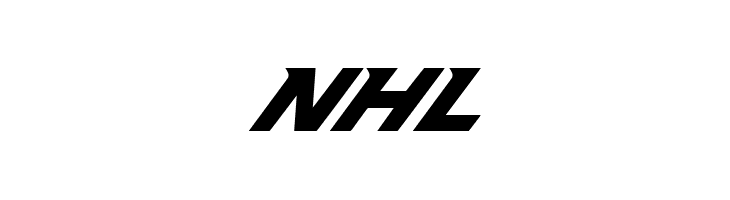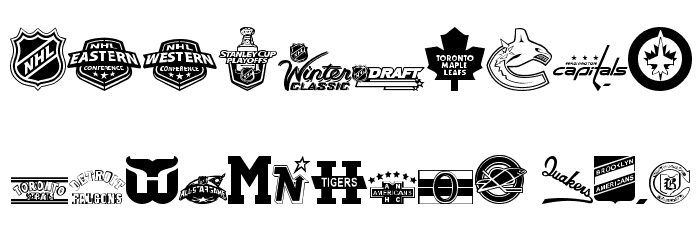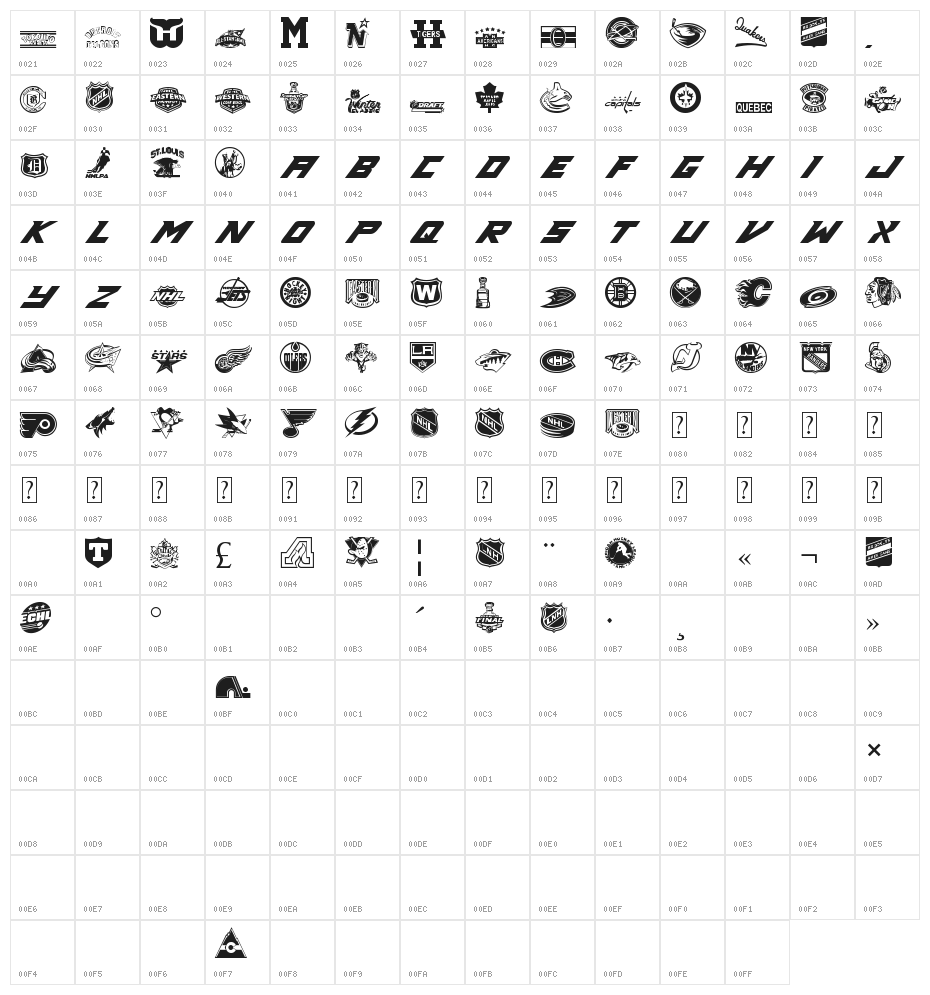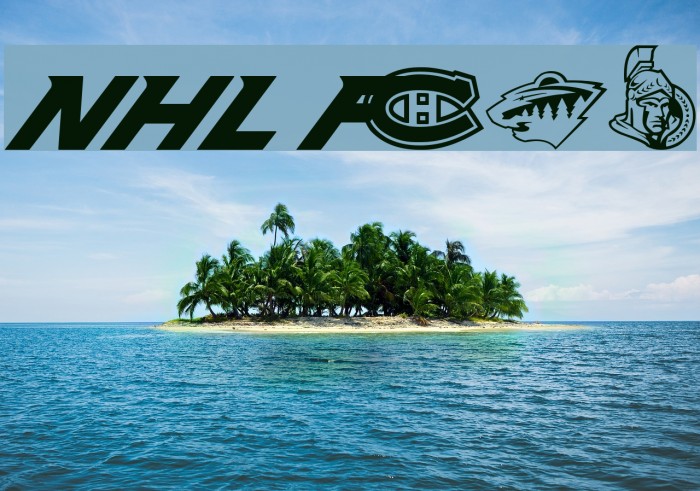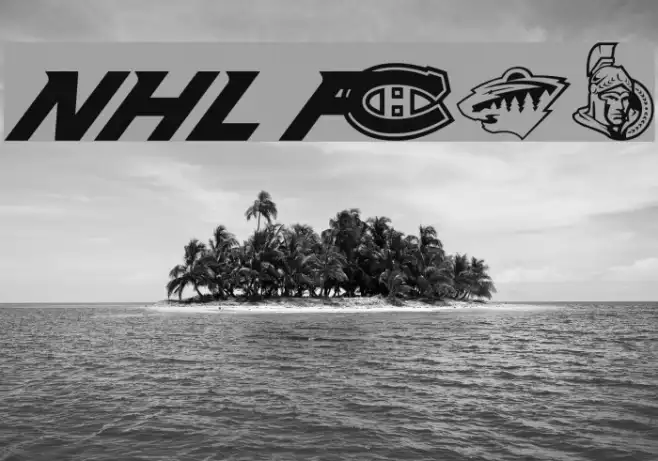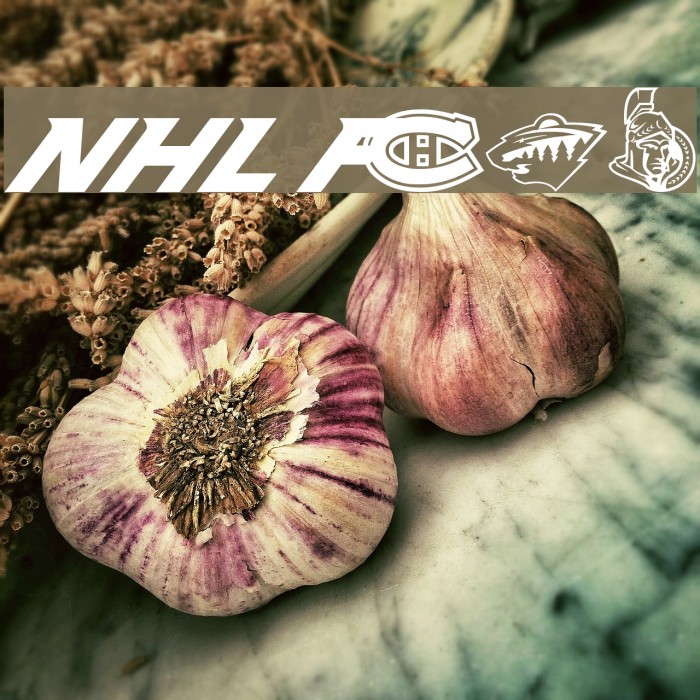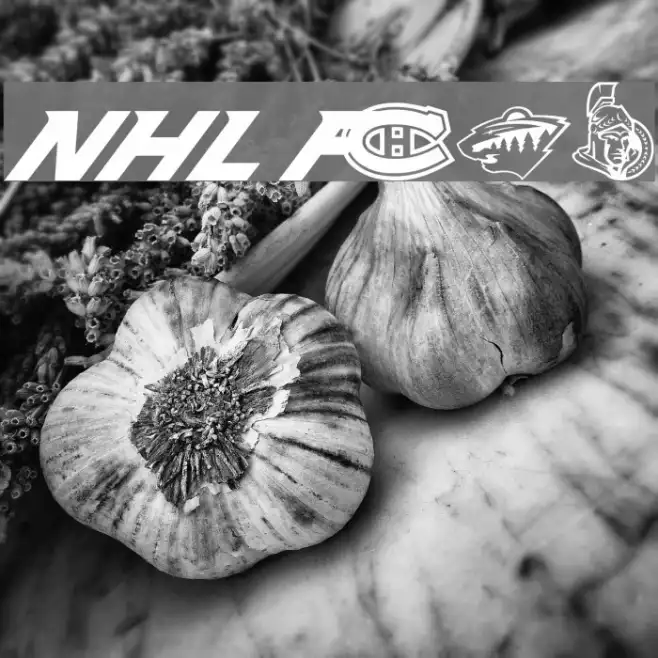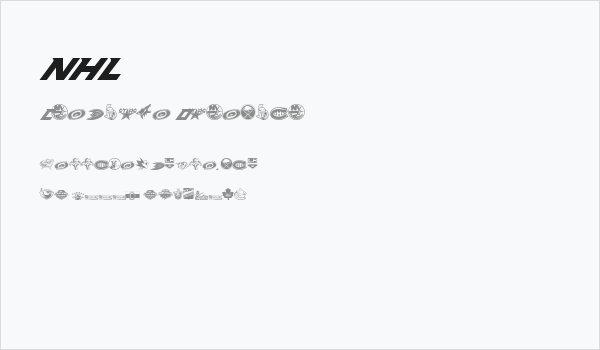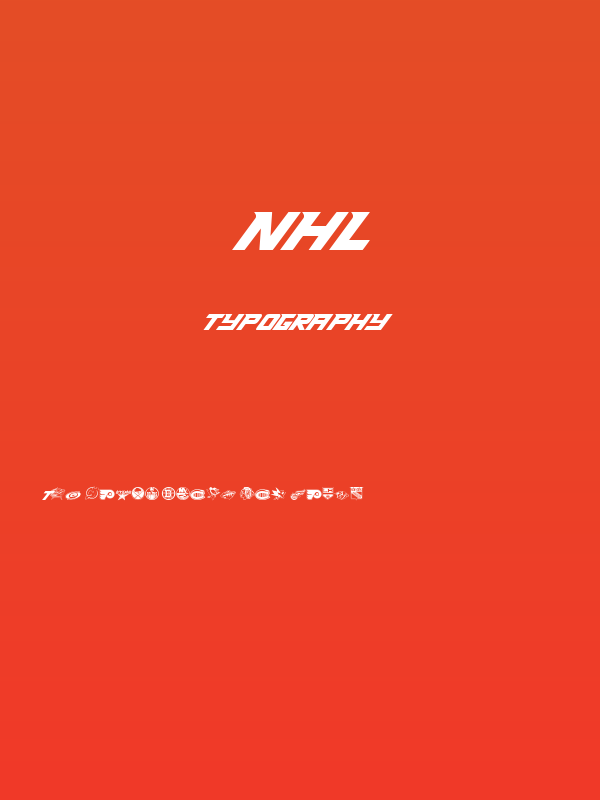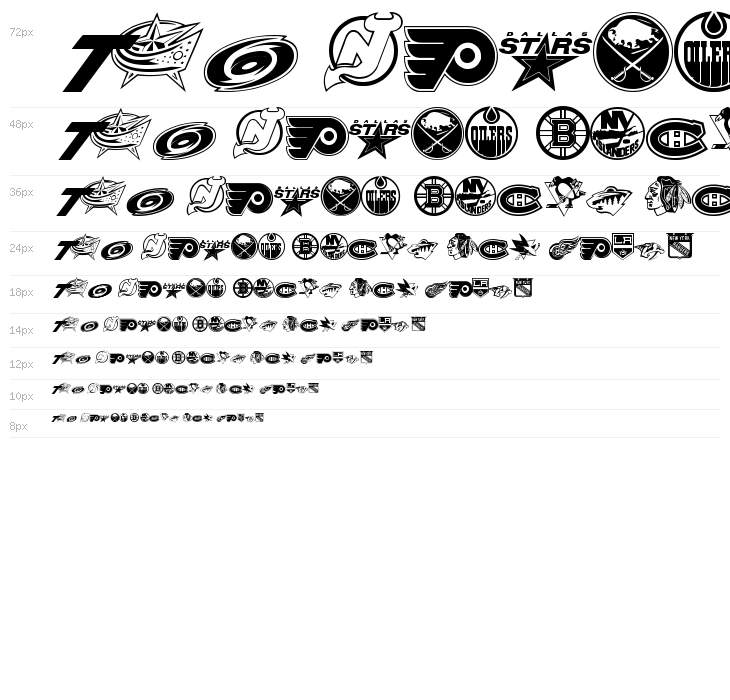
NHL Font
NHL Description
This font features a bold, angular design with a strong, dynamic presence. The letters are slanted forward, giving a sense of motion and energy. The strokes are thick and consistent, with sharp edges and a geometric style that conveys a modern and sporty feel. The uppercase letters are uniform in height, maintaining a cohesive look across the alphabet. This style is reminiscent of athletic branding, making it ideal for conveying strength and speed.
| Use Case | Logos, Headlines |
| Proposed Projects | Ideal for sports branding, team logos, merchandise, and dynamic advertising campaigns. |